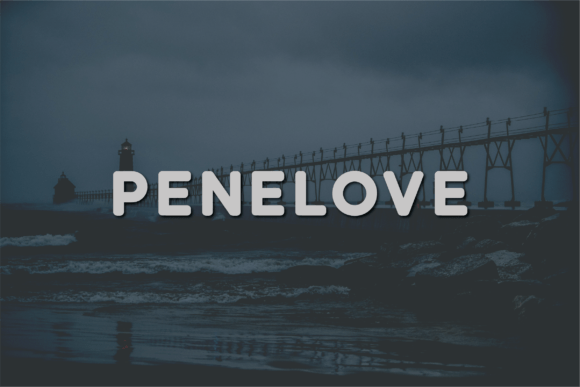
**Penelove Font: Elevate Your Designs with Timeless Elegance and Modern Charm**
In a world where visual aesthetics reign supreme, the Penelove Font emerges as a beacon of sophistication and versatility. This meticulously crafted sans serif font transcends the boundaries of ordinary typography, offering a captivating fusion of timeless elegance and modern charm. Its graceful curves and sharp edges dance in perfect harmony, creating a visual symphony that will leave you spellbound.
Penelove is the brainchild of A Christie, a visionary designer with an eye for detail. With a passion for creating fonts that evoke emotion and inspire creativity, A Christie poured their heart and soul into designing Penelove. The result is a font that captivates the imagination and transforms ordinary designs into extraordinary works of art.
Whether you're a seasoned designer, a budding entrepreneur, or simply someone who appreciates the beauty of exceptional typography, Penelove is the perfect font for you. Its versatility knows no bounds, making it the ideal choice for a wide range of projects. Enchant your logos with a touch of distinction, let your wedding invitations radiate romance, or craft breathtaking quotes that resonate with your audience. Penelove seamlessly integrates into advertisements, print media, magazines, and any creative endeavor you can imagine.
As you explore the limitless possibilities of Penelove, you'll discover a font that breathes life into your ideas. Its elegant lines and charismatic presence add a touch of allure to every project, capturing attention and leaving a lasting impression. With Penelove, you'll create designs that stand out from the crowd, captivating audiences with their timeless appeal and undeniable charm.
So, embark on a creative journey with Penelove and let your imagination soar. Witness the transformation as ordinary designs evolve into masterpieces, touched by the magic of this exceptional font. Penelove is more than just a font; it's an invitation to unleash your creativity and create designs that inspire, captivate, and leave an indelible mark on the world.
**Key Features of the Penelove Font:**
* Exquisite sans serif design with a harmonious blend of curves and edges
* Versatile and adaptable, suitable for a diverse range of projects
* Perfect for logos, wedding invitations, quotes, advertisements, print media, and more
* Adds a touch of elegance and sophistication to any design
* Enhances visual appeal and leaves a lasting impression
**Benefits of Using the Penelove Font:**
* Elevate your designs with a touch of timeless elegance and modern charm
* Captivate your audience with visually stunning creations
* Stand out from the competition with unique and memorable designs
* Express your creativity in a way that resonates with your audience
* Create designs that leave a lasting impression and inspire action